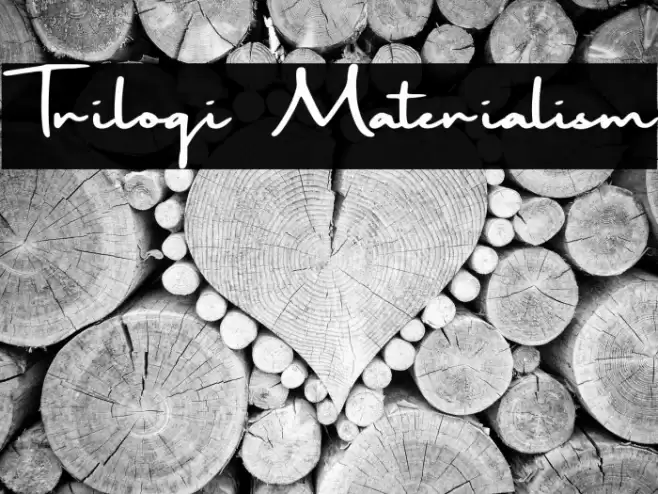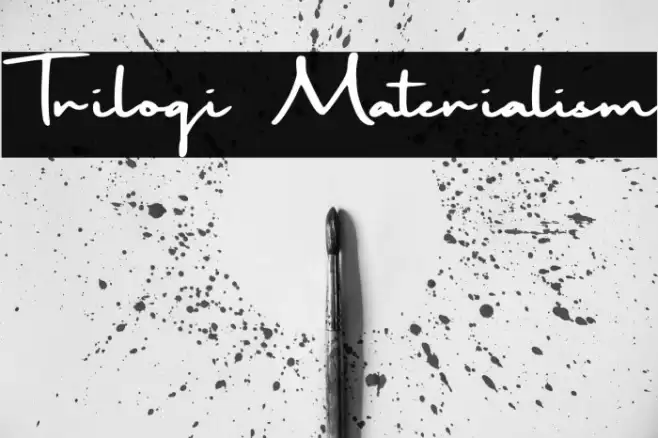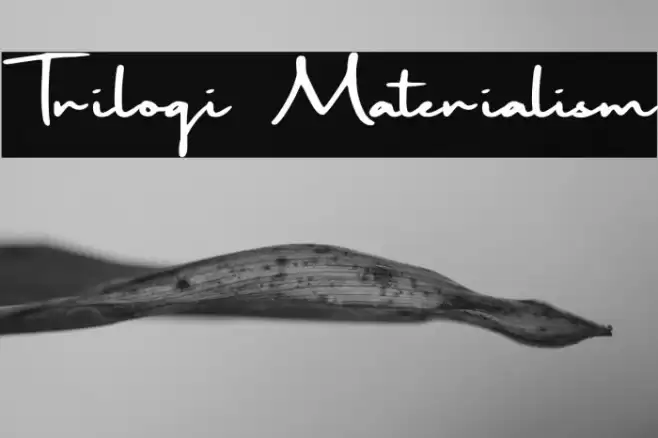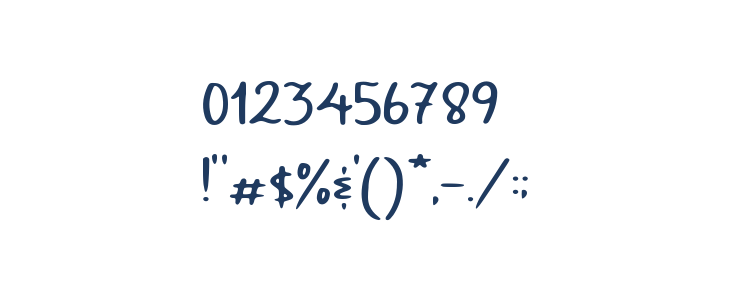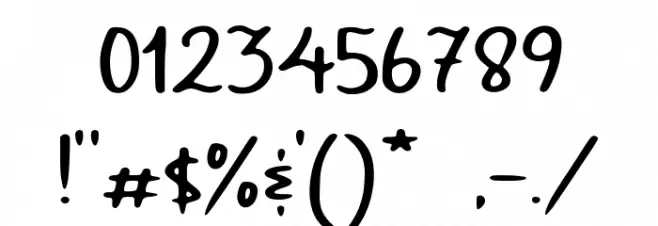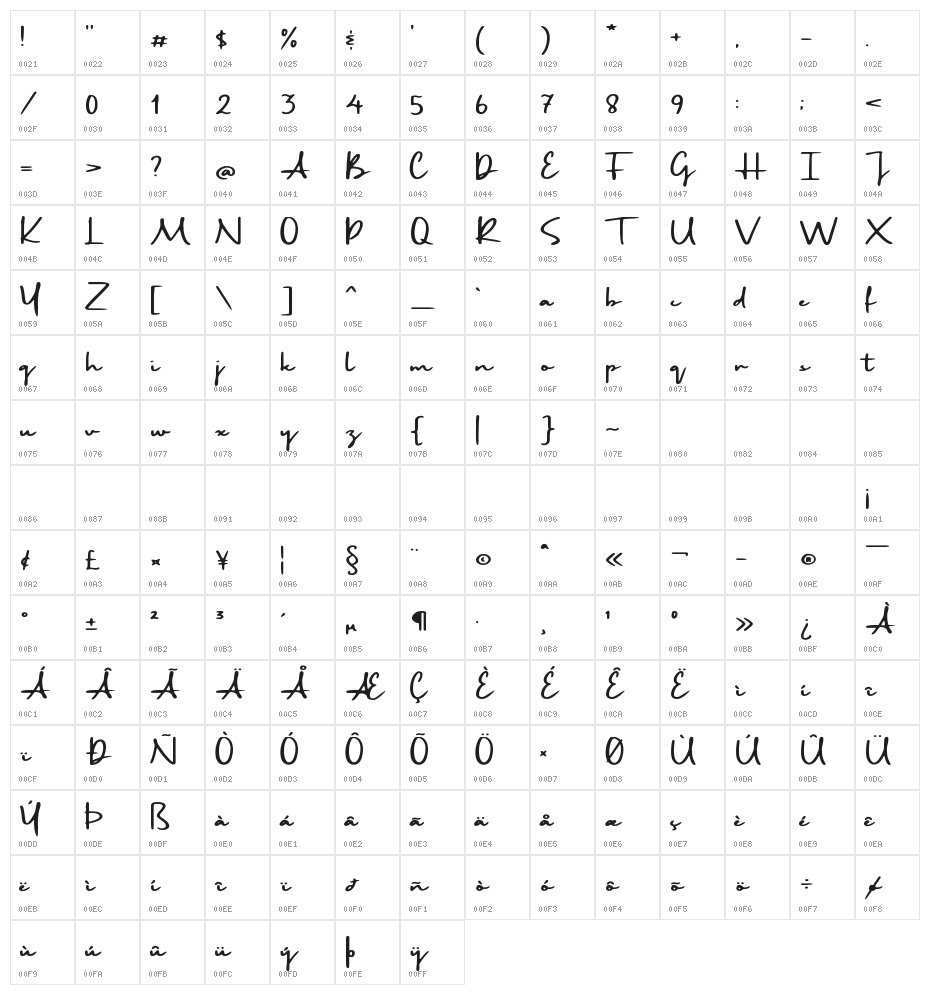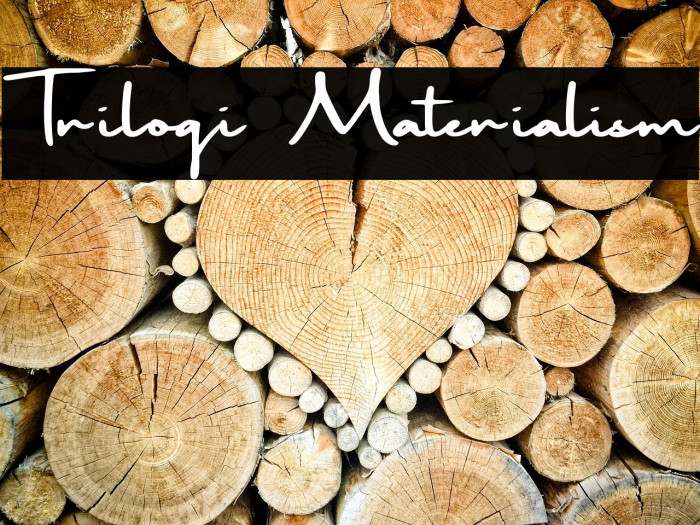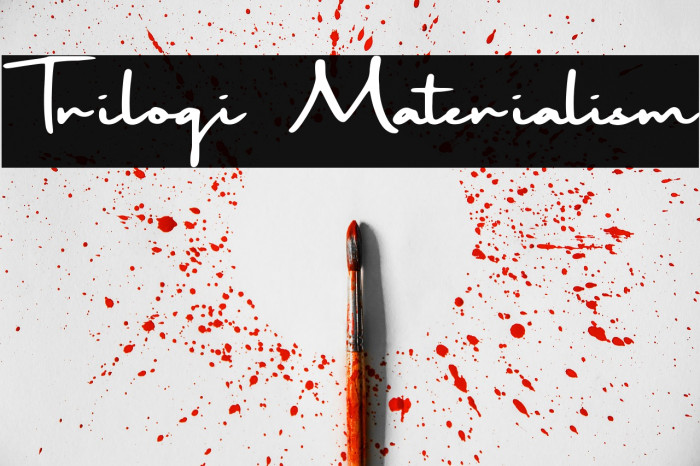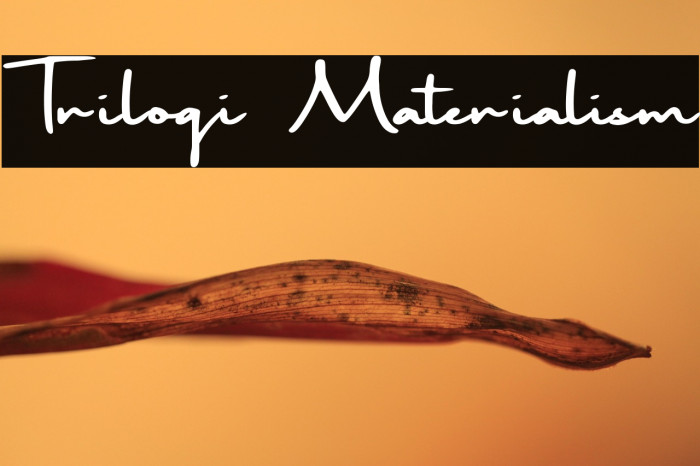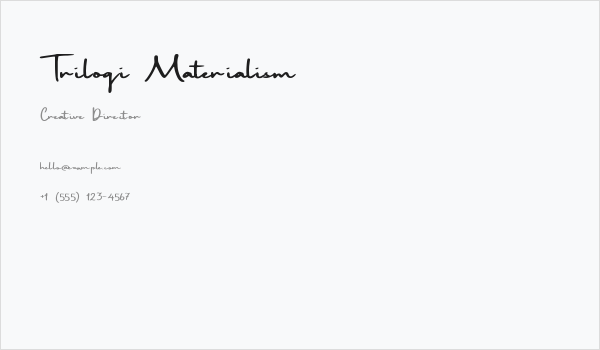
Trilogi Materialism Font
Trilogi Materialism Description
This font exhibits a lively and energetic handwritten style, characterized by its fluid and dynamic strokes. The uppercase letters maintain a consistent height, while the lowercase letters display a playful variation in size and form, adding a personal touch. The numerals are clear and legible, complementing the overall style. Special characters are creatively integrated, maintaining the font's unique personality. The strokes are moderately thick, providing good readability while preserving the handwritten aesthetic.
A dynamic and lively handwritten font with fluid strokes from Regular fonts.
- Proposed Projects: Ideal for personal branding, creative projects, invitations, and social media graphics where a personal and informal touch is desired.
- Use Case: Logos, Headlines, Invitations